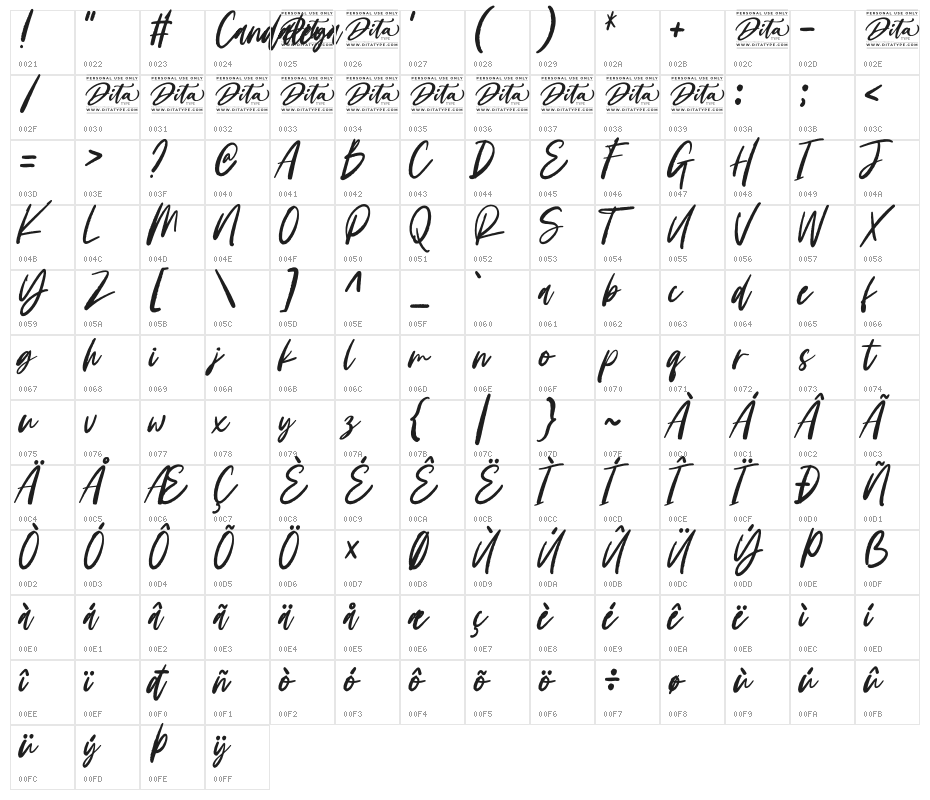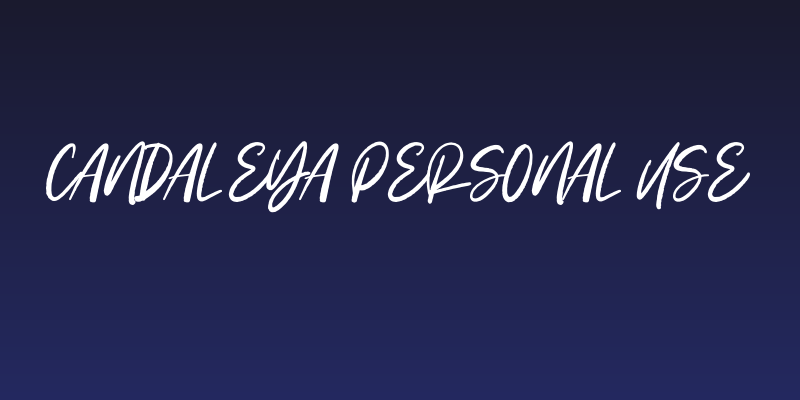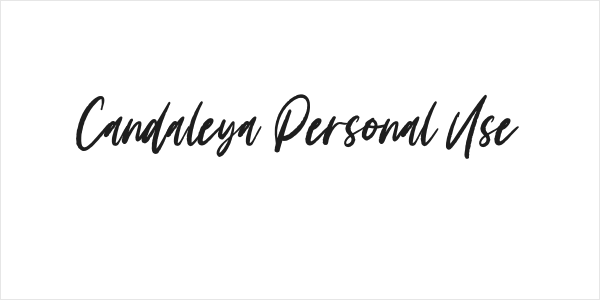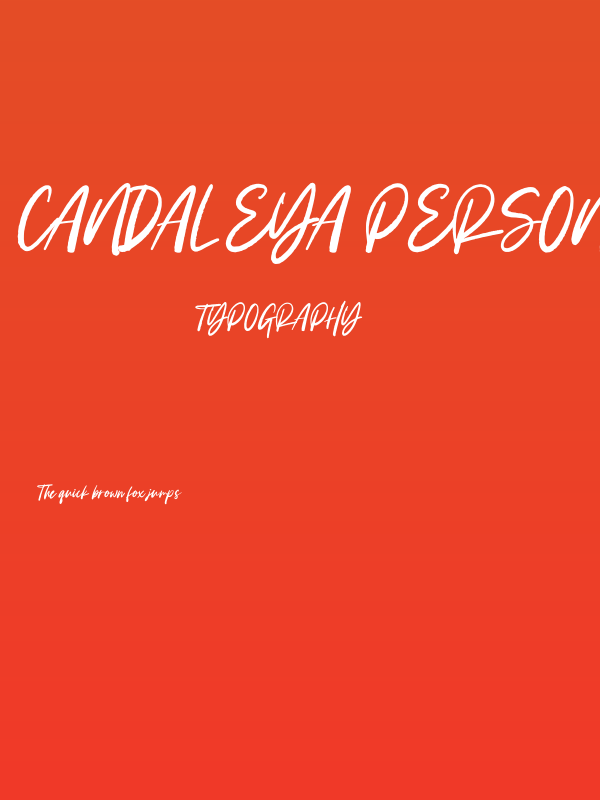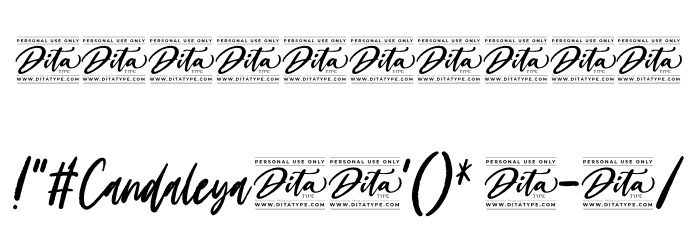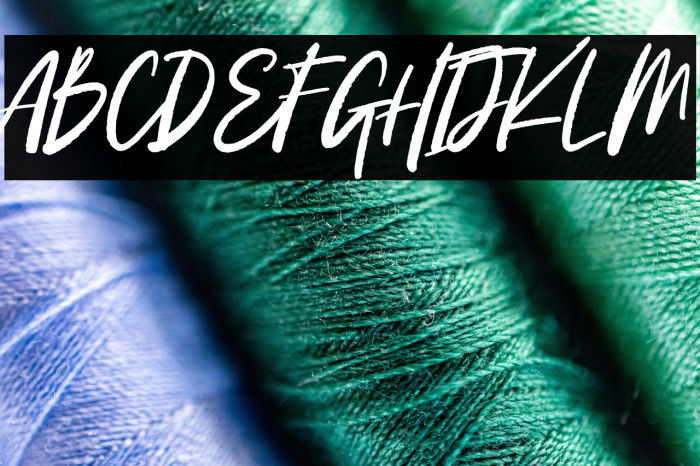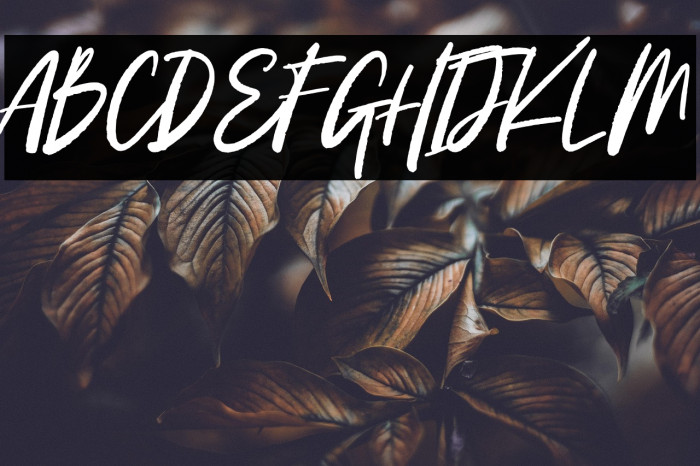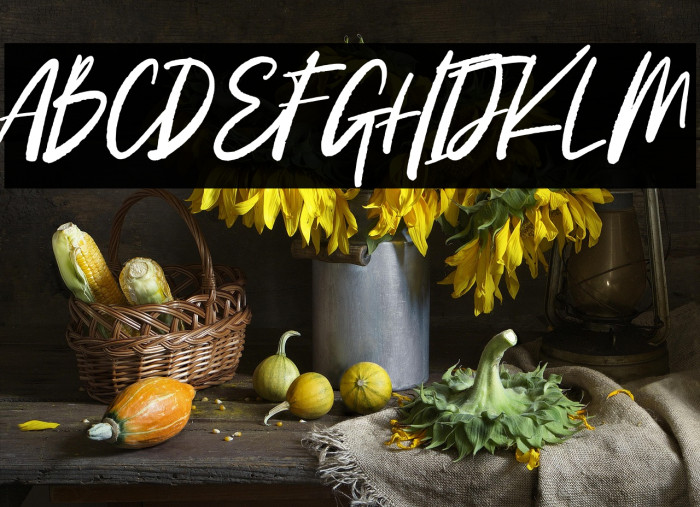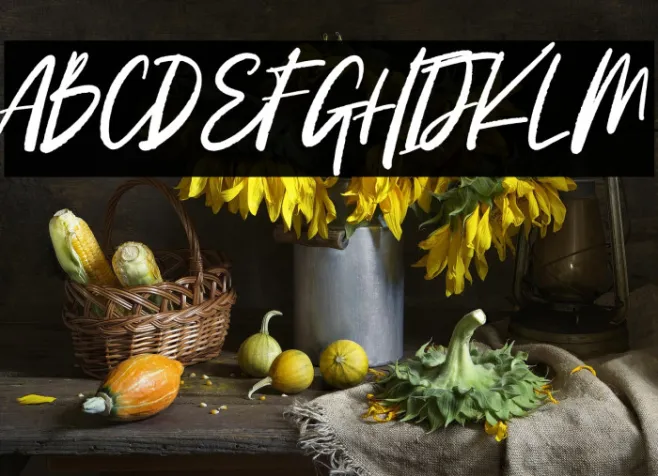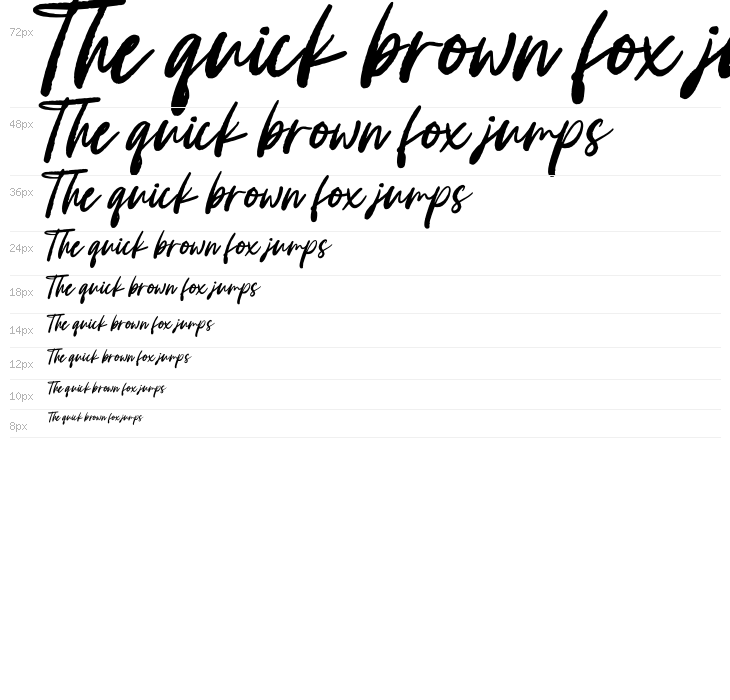
Candaleya Personal Use Font
Candaleya Personal Use Description
This font features a bold and expressive handwritten style, characterized by its fluid and dynamic strokes. The uppercase and lowercase letters exhibit a natural flow, with varying stroke widths that add a sense of movement and energy. The characters are slightly slanted, enhancing the casual and informal appearance. The font maintains a consistent baseline, while the ascenders and descenders extend gracefully, contributing to its elegant yet playful aesthetic. The numerals and special characters are designed to complement the overall style, ensuring versatility in various design contexts.